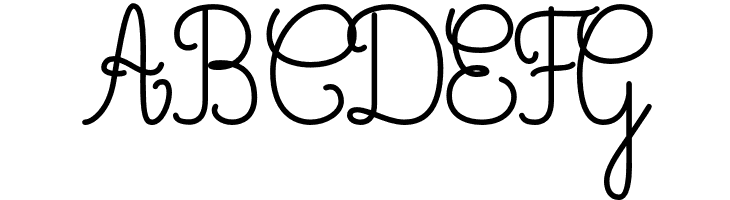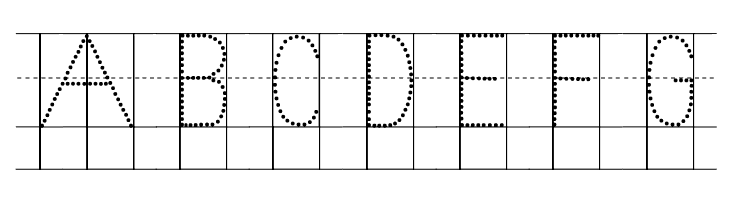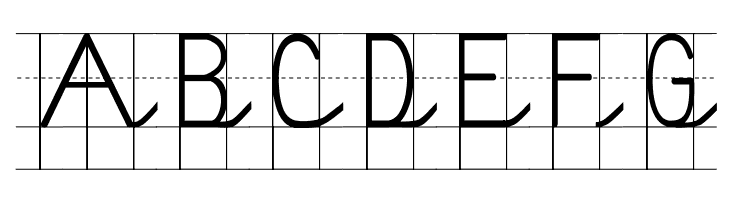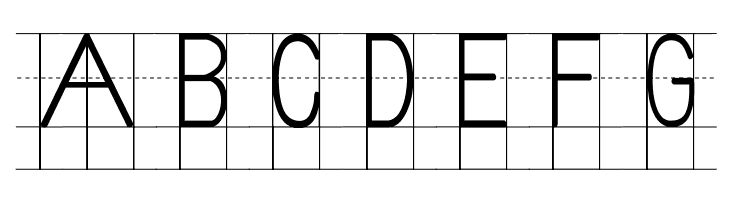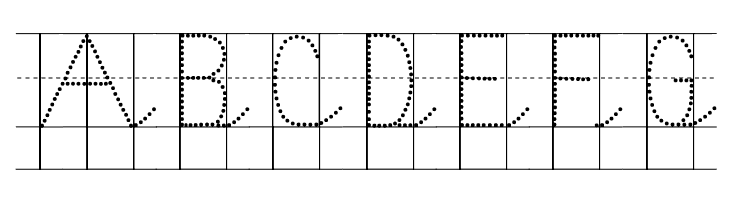
A bold, playful font with spider icons for a whimsical touch.
A playful and elegant script font with flowing, interconnected letters.
A graceful script font with flowing, cursive letters and elegant loops.
A playful, handwritten-style font with elegant, slender characters.
A thin, elegant font with a mix of modern and handwritten styles.
A playful, handwritten script font with looping, dynamic lines.
A dotted cursive font for handwriting practice.
A modern font combining geometric uppercase with cursive lowercase letters.
A dotted instructional font perfect for handwriting practice.
A modern cursive font with elegant, flowing letterforms and a cohesive style.